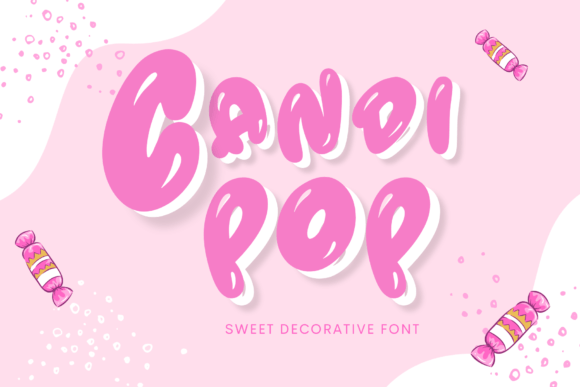
Step into a world of enchantment and captivation with Candipop Font, a decorative wonder crafted to ignite your creativity and elevate your designs to new heights. Let your imagination dance as you explore a realm of possibilities, where your creations come alive in vibrant colors and playful strokes.
Immerse yourself in the energetic pulse of Candipop, a font that effortlessly merges vintage charm with a modern twist. Its delightful curves and retro flair will add an irresistible touch of nostalgia to your designs, evoking a sense of warmth and familiarity.
With Candipop, you'll discover a versatile companion that adapts seamlessly to your every need. Whether you're crafting eye-catching product branding or captivating social media content, designing bold display headlines or fashioning unforgettable packaging, Candipop is your trusty partner, ready to transform your vision into tangible beauty.
Feel the magic unfold as Candipop's playful characters dance across your screen, captivating your audience with their charm and charisma. Express your unique style and make a lasting impression with every design, every project, every moment.
Embrace the joy and whimsy of Candipop, a font that invites you to dream, to create, to explore the boundless realms of your imagination. Unleash your creativity and let your designs bloom with color, character, and enchanting details. Download Candipop today and embark on a journey of design magic like never before.